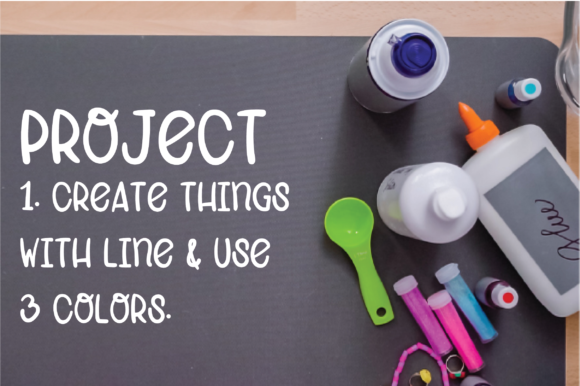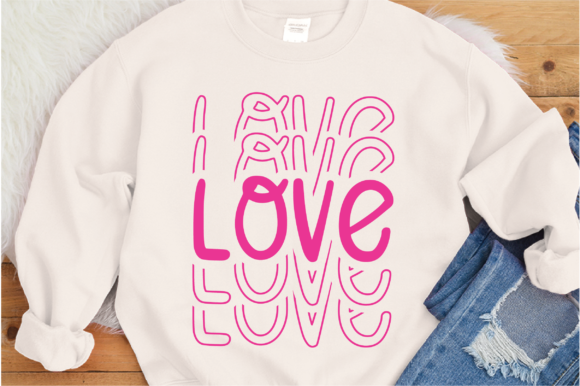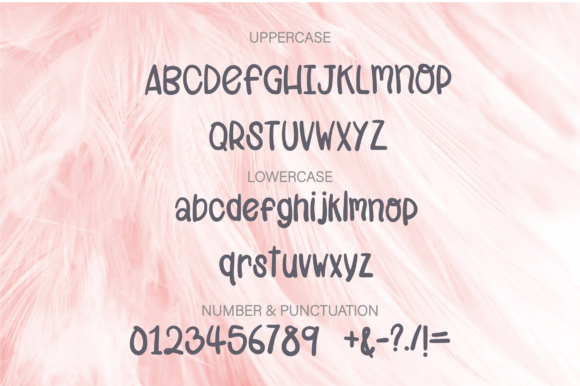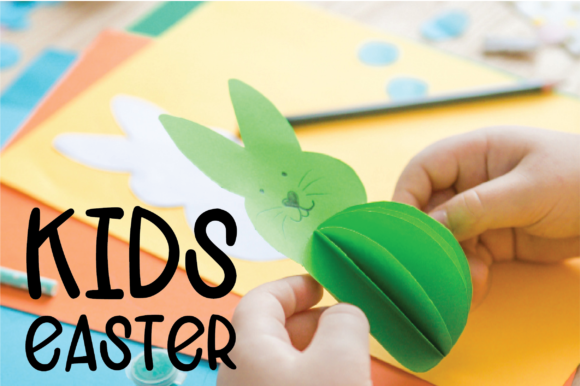
Happy Hipster Font
About Happy Hipster Font
“Happy Hipster” is a handwritten font characterized by its cute and relaxed style. This font proves to be an excellent choice for various design applications, including eye-catching logos, branding materials, quotes, children’s activities, and school projects.
The font’s charm lies in its ability to effortlessly convey a sense of cuteness and relaxation. Its carefully designed characters contribute to an overall aesthetic that is visually appealing and engaging.
“Happy Hipster” shines across a range of design contexts. Whether used to create distinctive logos, enhance branding materials, add personality to quotes, or bring creativity to children’s activities and school projects, its versatility is a standout feature.
In essence, “Happy Hipster” is a font that encapsulates cuteness and relaxation. Its potential to make designs stand out in various applications, combined with its relaxed handwritten style, makes it a valuable tool for designers aiming to create visually appealing and engaging visuals.